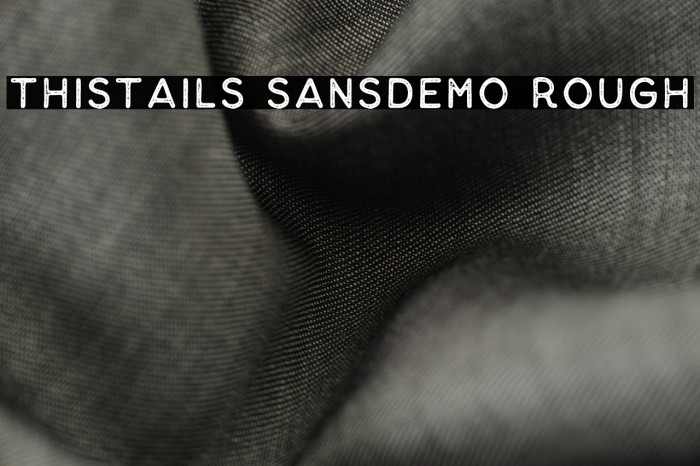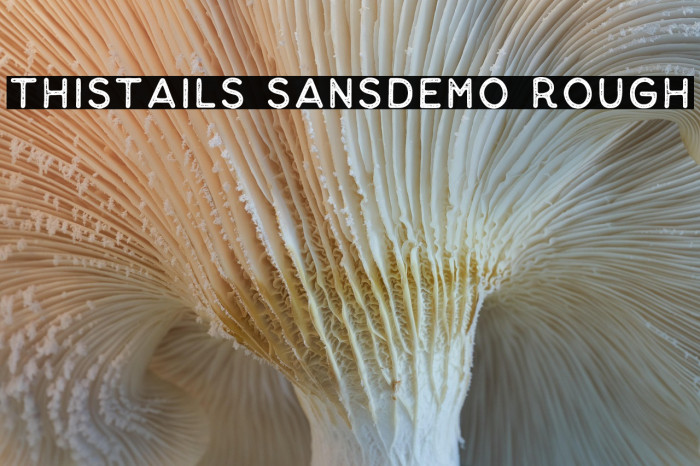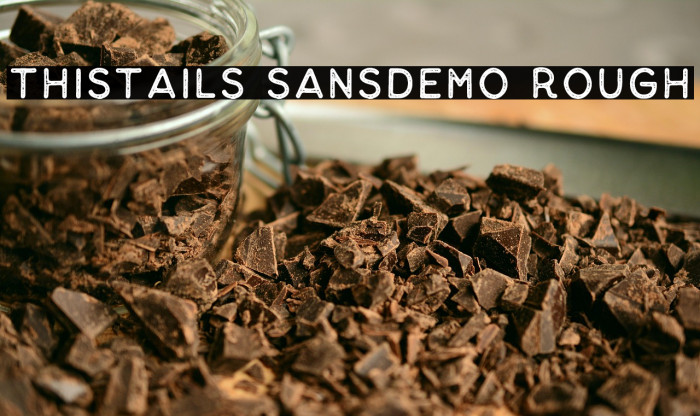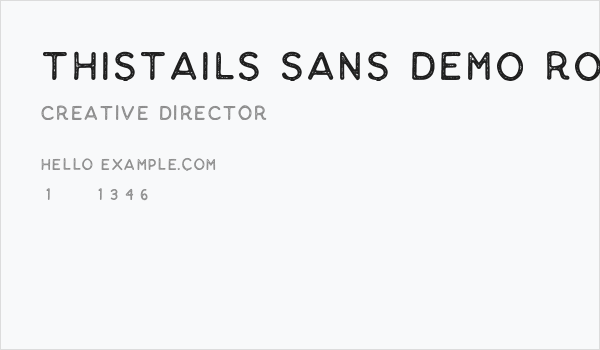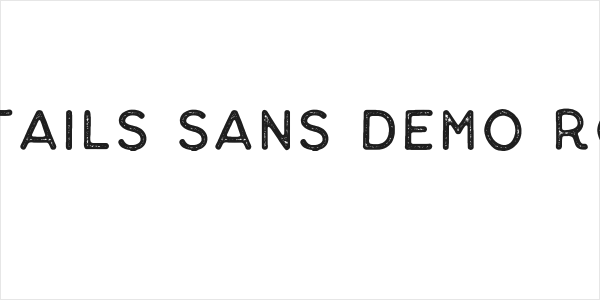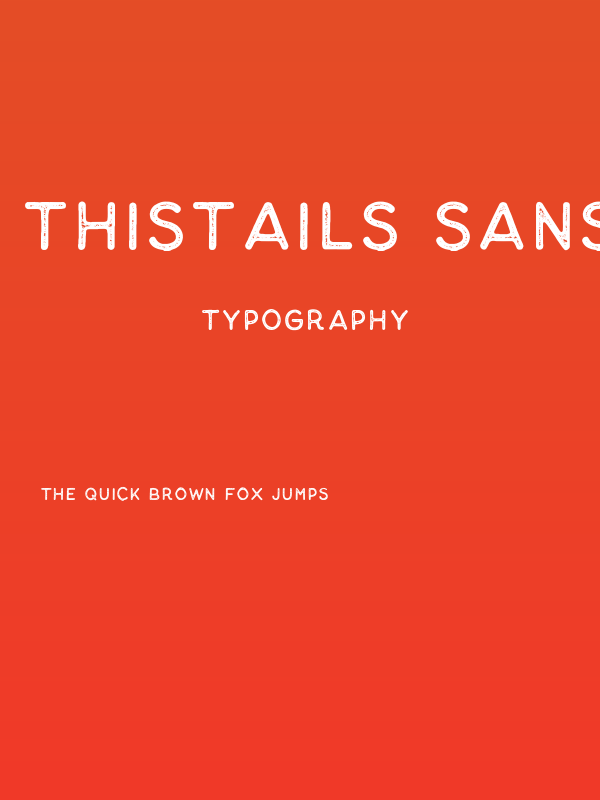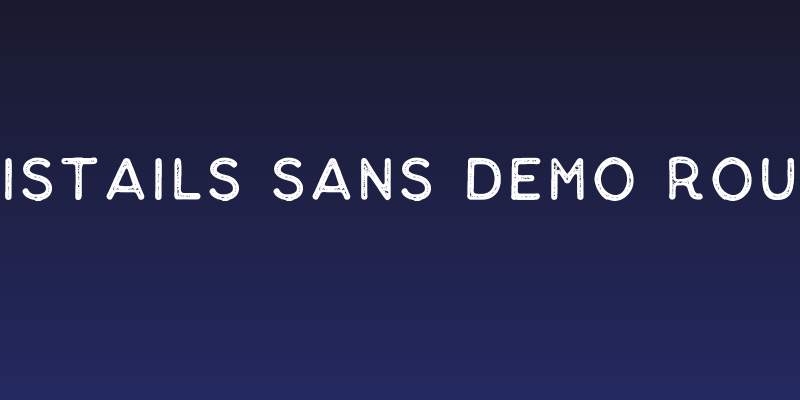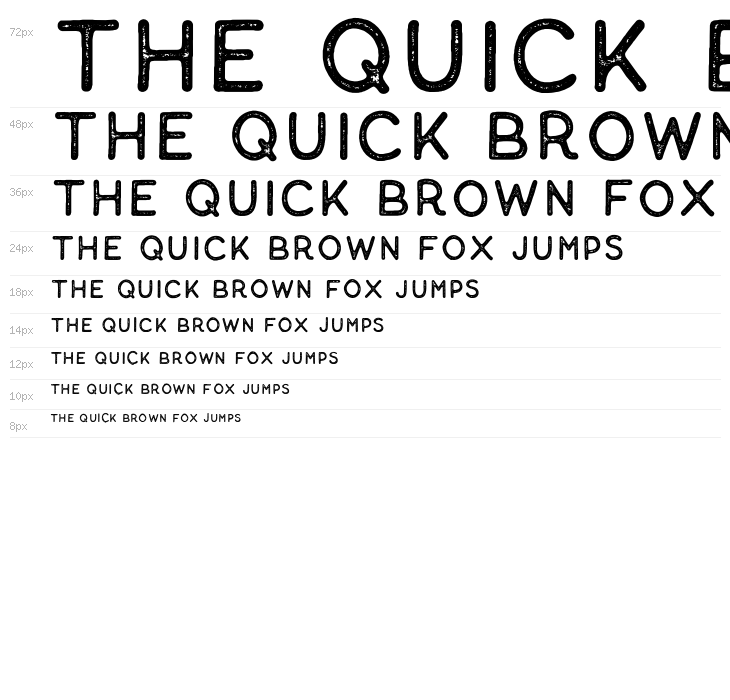
Thistails Sans_Demo Rough Font
Thistails Sans_Demo Rough Description
This font features a rough, textured appearance that gives it a distressed and vintage feel. The characters are sans-serif with a slightly irregular outline, adding to the hand-crafted aesthetic. The uppercase and lowercase letters maintain a consistent style, with rounded edges and a uniform stroke width. The numbers and special characters follow the same design principles, ensuring a cohesive look across all elements. This font's unique texture makes it ideal for projects that require a rustic or handmade touch.
| Use Case | Logos, Posters, Branding |
| Proposed Projects | Ideal for branding, packaging, posters, and any design project that requires a rustic or vintage aesthetic. |